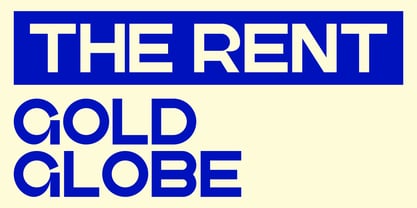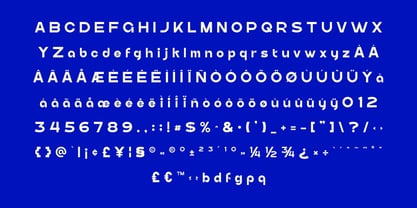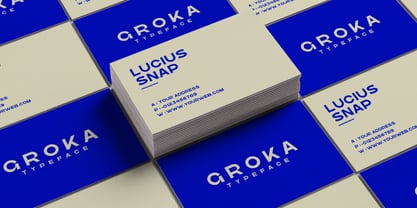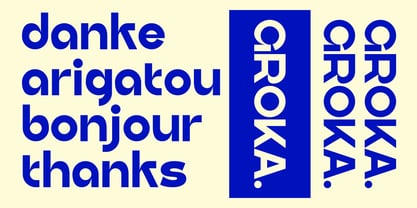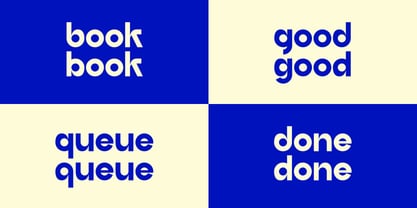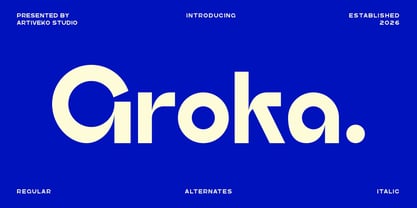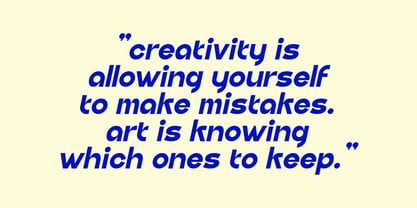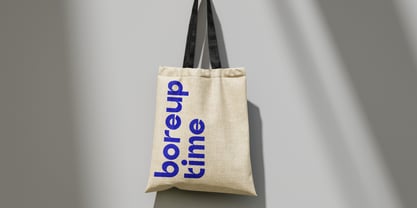
Groka
by Artiveko
The Groka Font Family was designed by Iwan Alwan and published by Artiveko. Groka contains 2 styles and family package options. More about this family
Groka is a creative modern sans serif typeface designed for designers who value clarity, flexibility, and contemporary aesthetics. With clean construction, balanced proportions, and subtle character details, Groka delivers a professional yet expressive look across a wide range of creative applications. Perfect for branding, logos, visual identity systems, social media graphics, packaging, websites, and editorial layouts, Groka adapts effortlessly from bold headlines to clean body compositions. Its modern structure ensures high readability while maintaining a distinctive personality that enhances brand presence. Groka is not just a font — it’s a versatile creative tool for modern designers and forward-thinking brands.
Designers: Iwan Alwan
Foundry: Artiveko